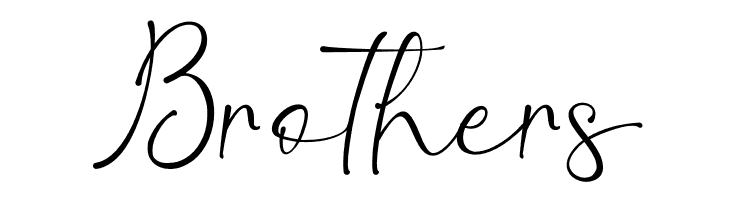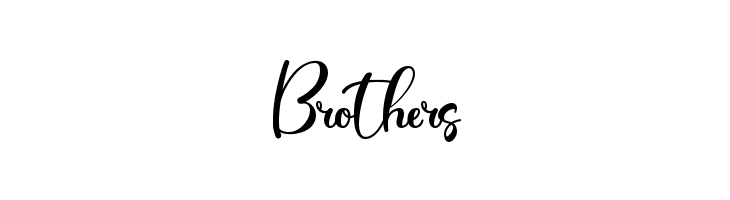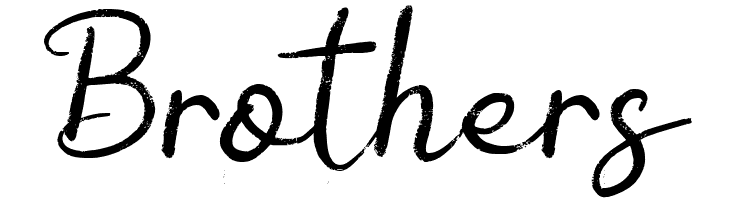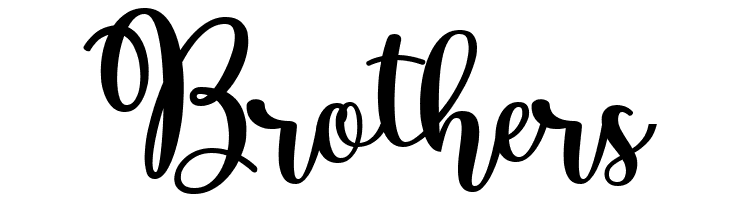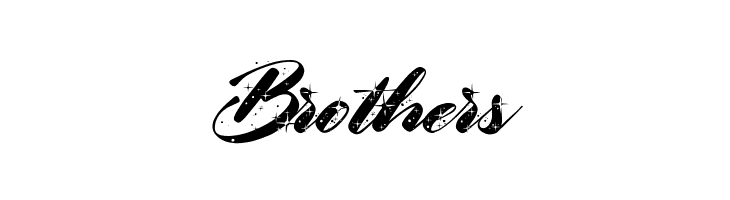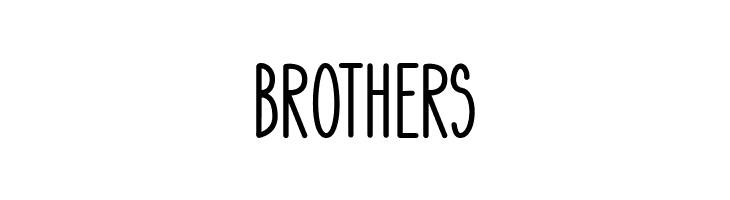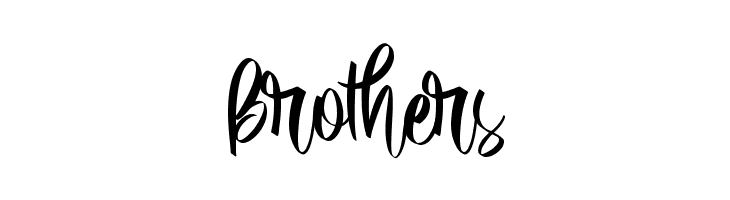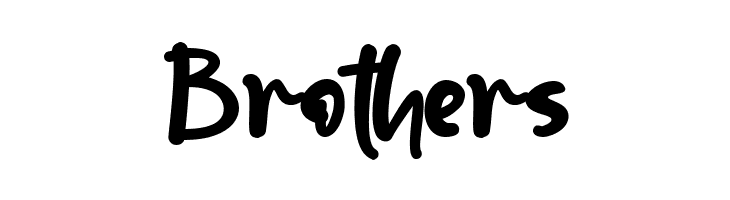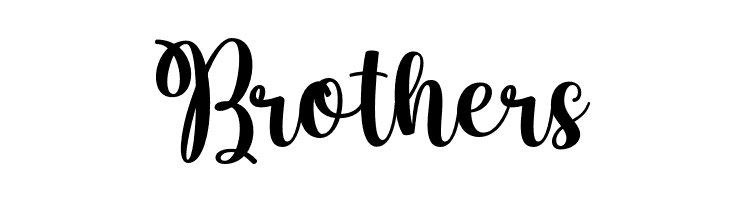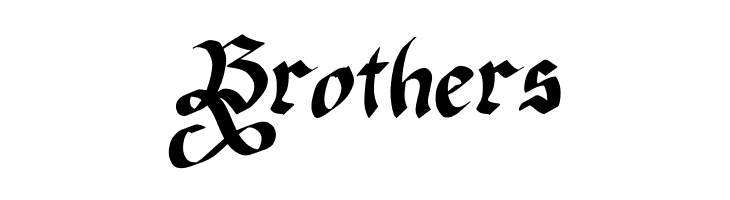
• Christmas Hat
A festive, decorative font with star patterns and hat-like accents on uppercase letters.
• Christmas Hearths - Personal use
Expressive, bold script with high contrast and decorative flourishes.
• Christmas Highway
Whimsical, bold script with festive swashes and loops.
• Christmas History
A festive and elegant script font with flowing, cursive letters and whimsical charm.
• Christmas History - Personal Us
A playful and elegant script font with flowing, cursive letterforms.
• Christmas Holiday
A playful, festive handwritten script with bold, rounded characters.
• Christmas Holiday Monogram
Ornate script font with festive, swirling details.
• Christmas Holiday_Personal Use
A bold, handwritten script font with a festive and playful vibe.
• Christmas Holland Personal Use
A festive, cursive script font with bold strokes and elegant loops.
• Christmas in Brighton
A festive, decorative script font with sparkling accents and elegant flourishes.
• Christmas Ink
A lively and expressive handwritten font with fluid, dynamic strokes.
• Christmas Jewelry
Bold, festive display font with Christmas-themed decorations.
• Christmas Journey
A lively and expressive script font with flowing, cursive letterforms.
• Christmas Joy Demo
Decorative serif font with festive swashes and high contrast.
• Christmas Jumper 2023 Regular
A bold, decorative font with a knitted sweater pattern ideal for festive themes.
• Christmas Leaf - Personal Use
A whimsical and elegant script font with a hand-drawn, calligraphic style.
• Christmas Leaf Regular
A festive, leaf-patterned font with bold, rounded strokes and a playful style.
• Christmas Liberty Demo
Ornate script font with festive, swirling embellishments.
• Christmas Light
A tall, slender, and whimsical font with a playful style.
• Christmas Light
A playful, tall, and narrow font with rounded edges and consistent stroke width.
• Christmas Lights